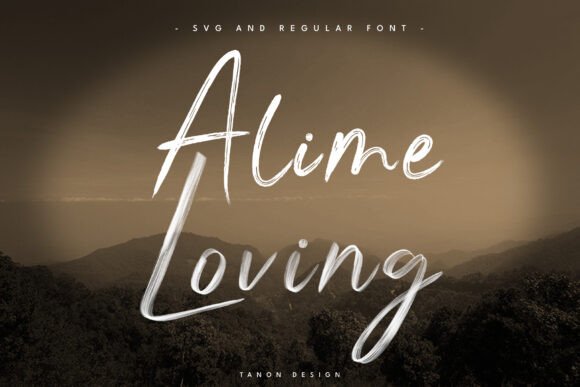
Introducing Alime Loving: The Ultimate Handwritten Brush Font for Your Design Projects
Are you tired of using the same old fonts for your design projects? Do you want to add a personal touch to your t-shirt designs, mug designs, digital designs, crafts, cards, and other projects? Look no further than Alime Loving, a beautiful handwritten brush font that is sure to take your designs to the next level. In this article, we’ll introduce you to Alime Loving, a two-font set that includes a regular font and an SVG font, and explore how you can use it to create stunning designs.
What is Alime Loving?
Alime Loving is a realistic brush font that is designed to give your designs a personal and handmade touch. The font is created with a brush, giving it a unique and organic feel that is perfect for a wide range of design projects. The Alime Loving font set includes two fonts: a regular font and an SVG font, which can be used in a variety of applications, from commercial projects to personal crafts.
Key Features of Alime Loving
So, what makes Alime Loving so special? Here are some of the key features that set it apart:
- Realistic brush font: Alime Loving is a realistic brush font that is designed to look like it was created with a brush. The font has a unique and organic feel that is perfect for adding a personal touch to your designs.
- Two-font set: The Alime Loving font set includes two fonts: a regular font and an SVG font. This gives you flexibility and allows you to use the font in a variety of applications.
- Handwritten style: Alime Loving is a handwritten font that is designed to give your designs a personal and handmade touch.
- Compatible with a wide range of projects: Alime Loving is perfect for a wide range of design projects, including t-shirt designs, mug designs, digital designs, crafts, cards, and more.
How to Use Alime Loving
- Experiment with different colors: Alime Loving looks great in a variety of colors, so don’t be afraid to experiment and find the perfect color for your design.
- Use it for headlines and body text: Alime Loving is a versatile font that can be used for both headlines and body text.
- Pair it with other fonts: Alime Loving can be paired with other fonts to create a unique and interesting design.
Benefits of Using Alime Loving
So, why should you choose Alime Loving for your design projects? Here are just a few benefits of using this amazing font:
- Adds a personal touch: Alime Loving adds a personal and handmade touch to your designs, making them stand out from the crowd.
- Increases creativity: The unique and organic feel of Alime Loving can help to increase creativity and inspire new ideas.
- Versatile: Alime Loving can be used in a wide range of design projects, from commercial projects to personal crafts.
Who Can Use Alime Loving?
Alime Loving is perfect for a wide range of designers, crafters, and artists, including:
- Graphic designers: Alime Loving is a great font for graphic designers who want to add a personal touch to their designs.
- Crafters: Alime Loving is perfect for crafters who want to add a handmade touch to their crafts.
- Artists: Alime Loving can be used by artists who want to add a unique and organic feel to their artwork.
- Small business owners: Alime Loving is a great font for small business owners who want to create unique and eye-catching designs for their marketing materials.
In conclusion, Alime Loving is a beautiful handwritten brush font that is perfect for a wide range of design projects. With its realistic brush font, two-font set, and handwritten style, Alime Loving is sure to add a personal and handmade touch to your designs. Whether you’re a graphic designer, crafter, artist, or small business owner, Alime Loving is a great choice for any design project.